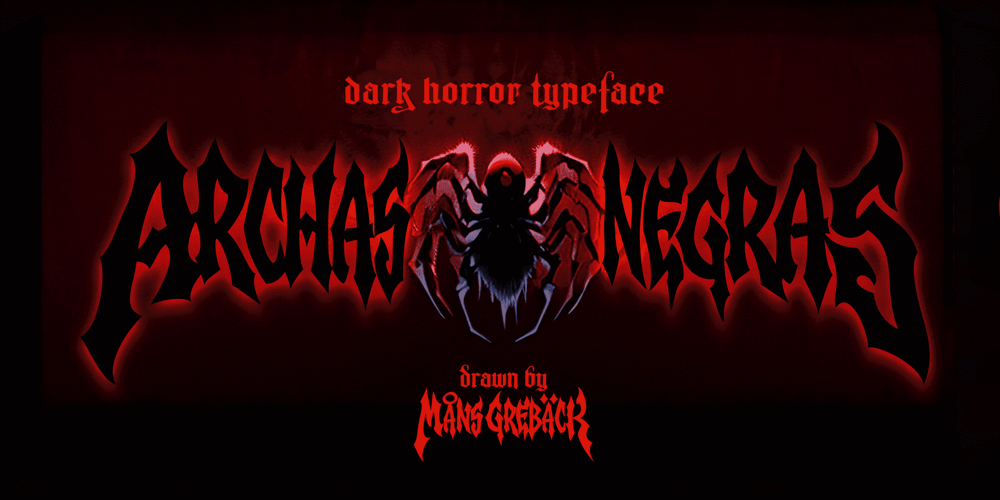
Archaz Negras
Archaz Negras font
Archaz Negras Font Family was designed by Måns Grebäck and published by Mans Greback. Archaz Negras contains 4 styles and family package options. Archaz Negras strikes a chord with its rough rock band logo aesthetic. Its symmetric and captivating character makes it a fit for movie posters, Halloween invites, or a heavy metal t-shirt that demands attention. Dark, daring, and undeniably striking, Archaz Negras channels the raw energy of death metal and an eerie aura of horror. Designed with precision by Mans Greback, this destroyed font resonates with the rebellious spirit of punk and its haunting allure of the unknown.